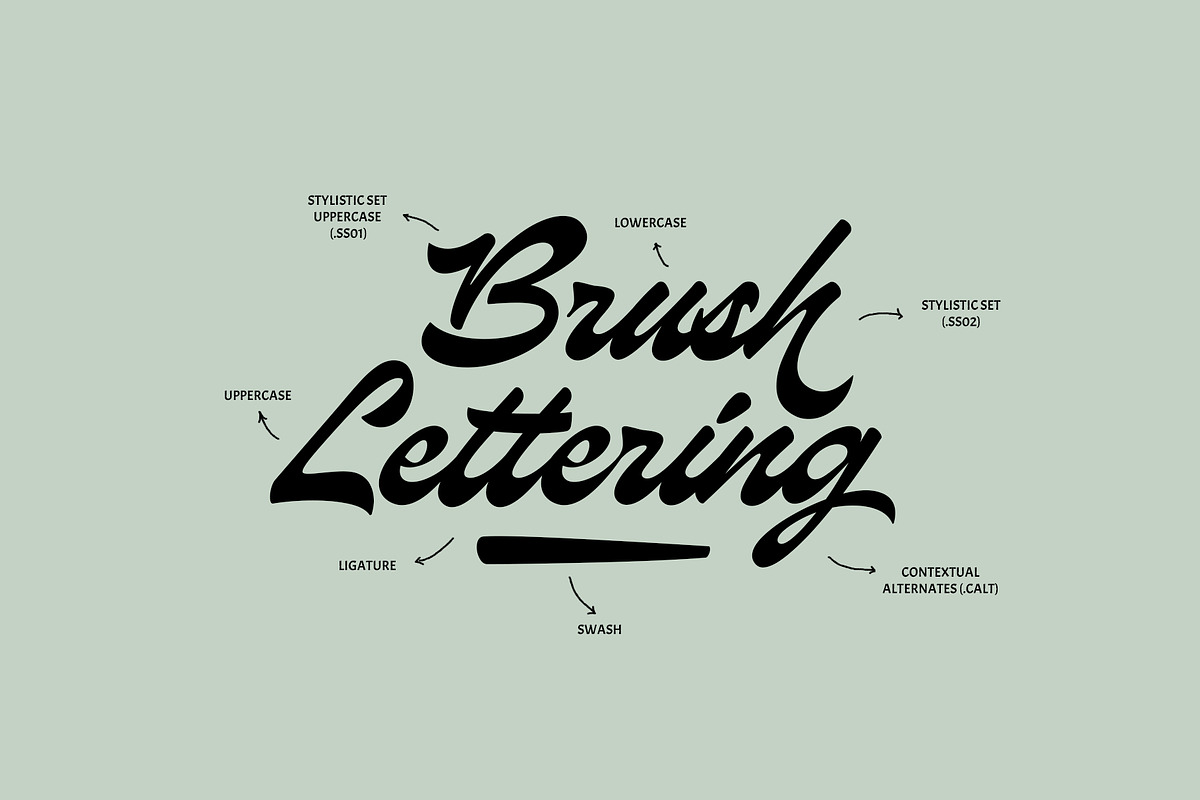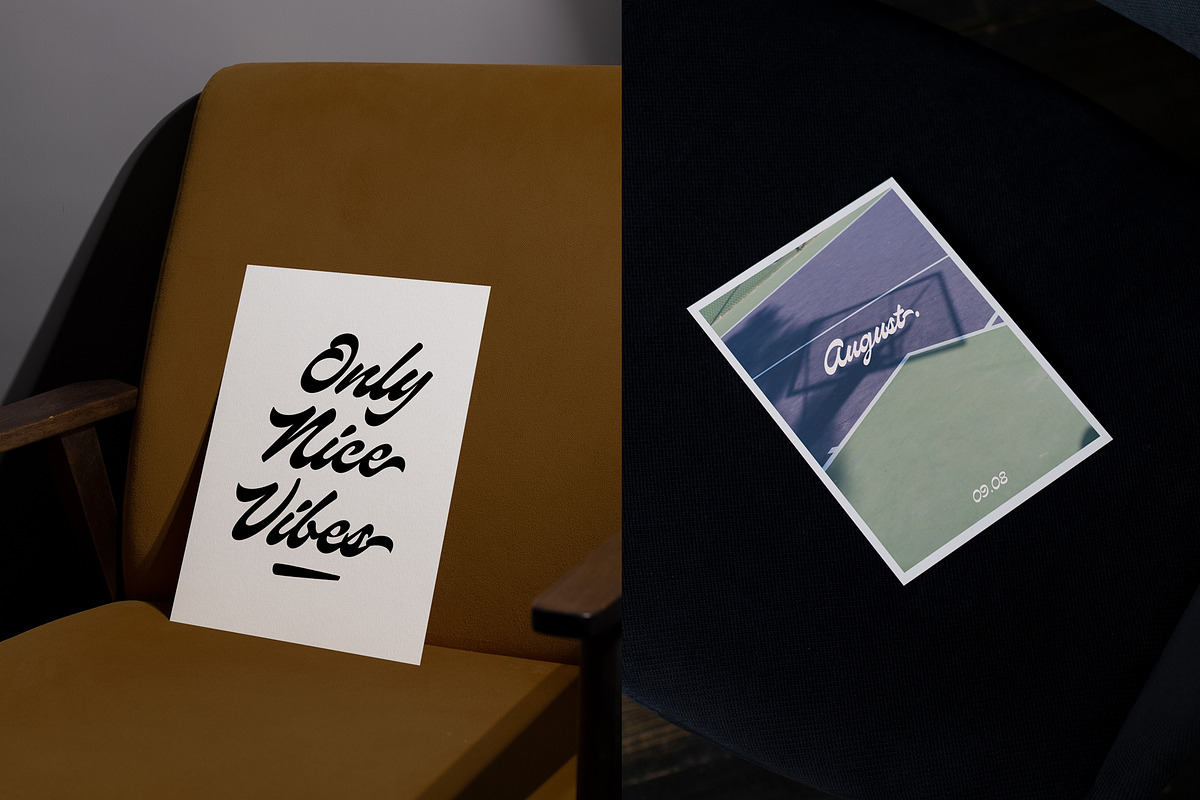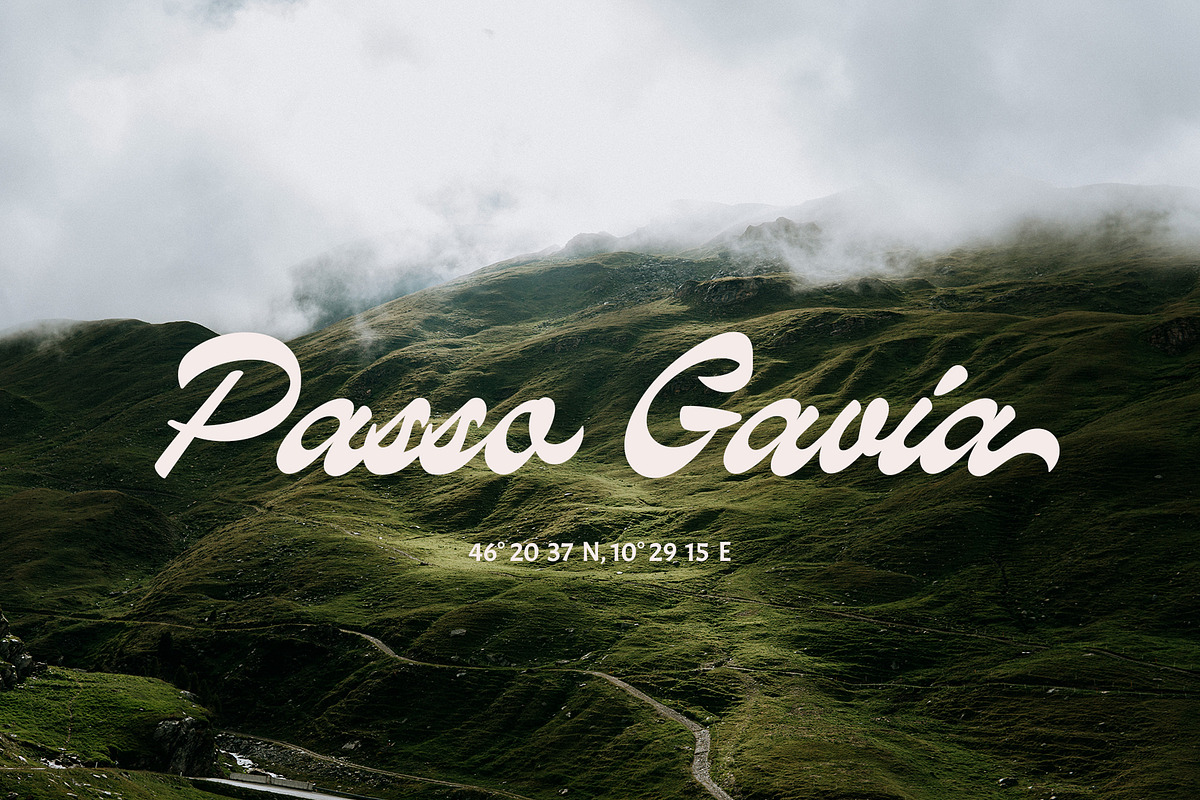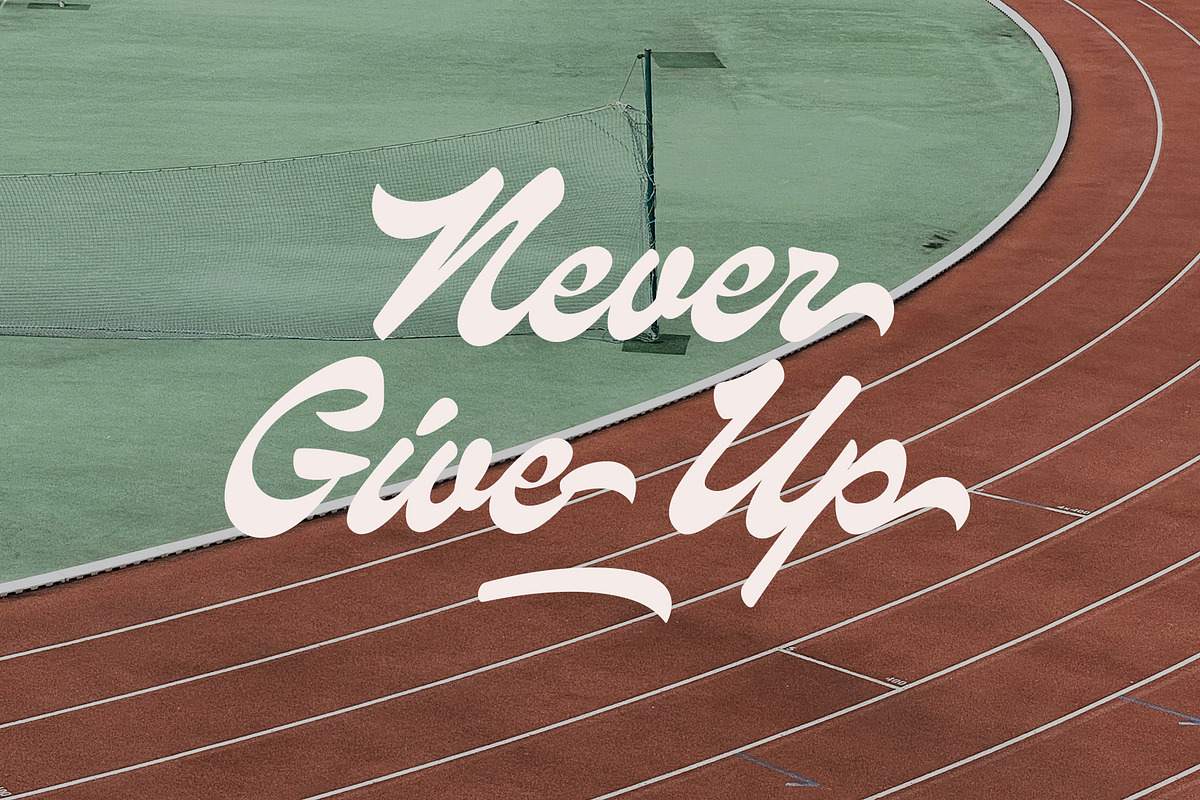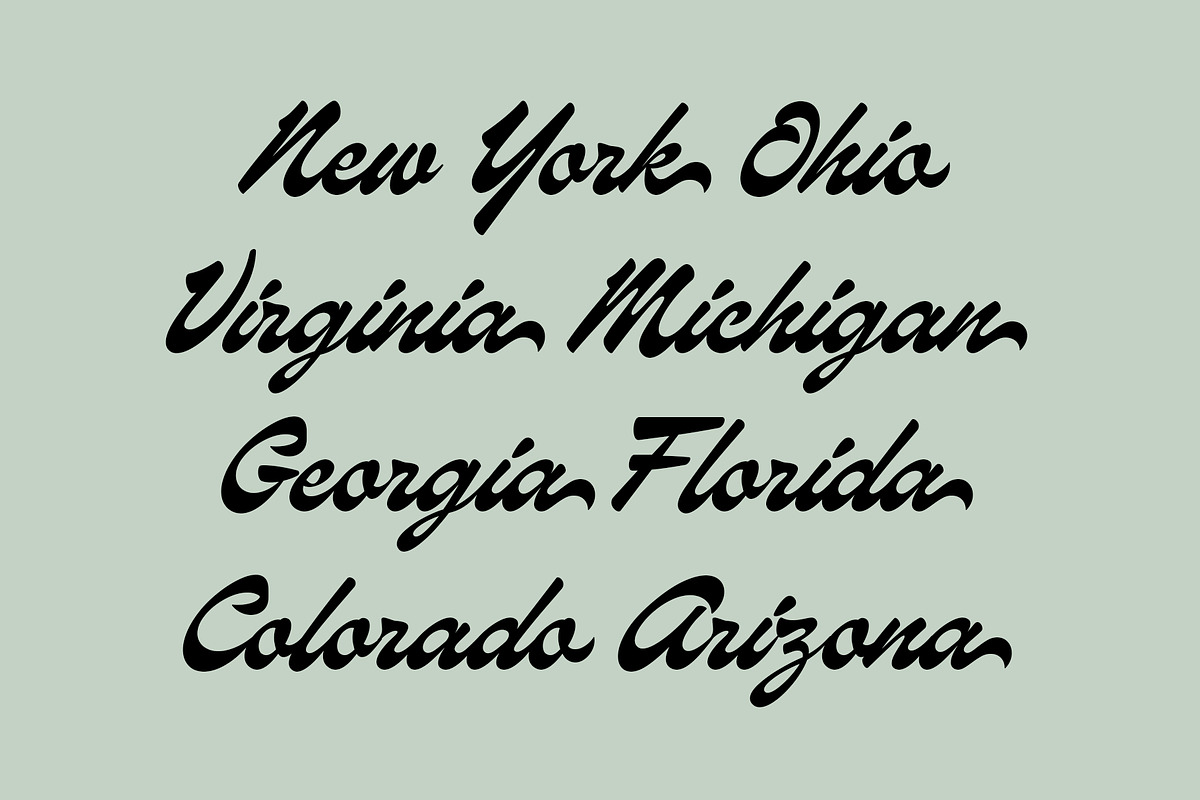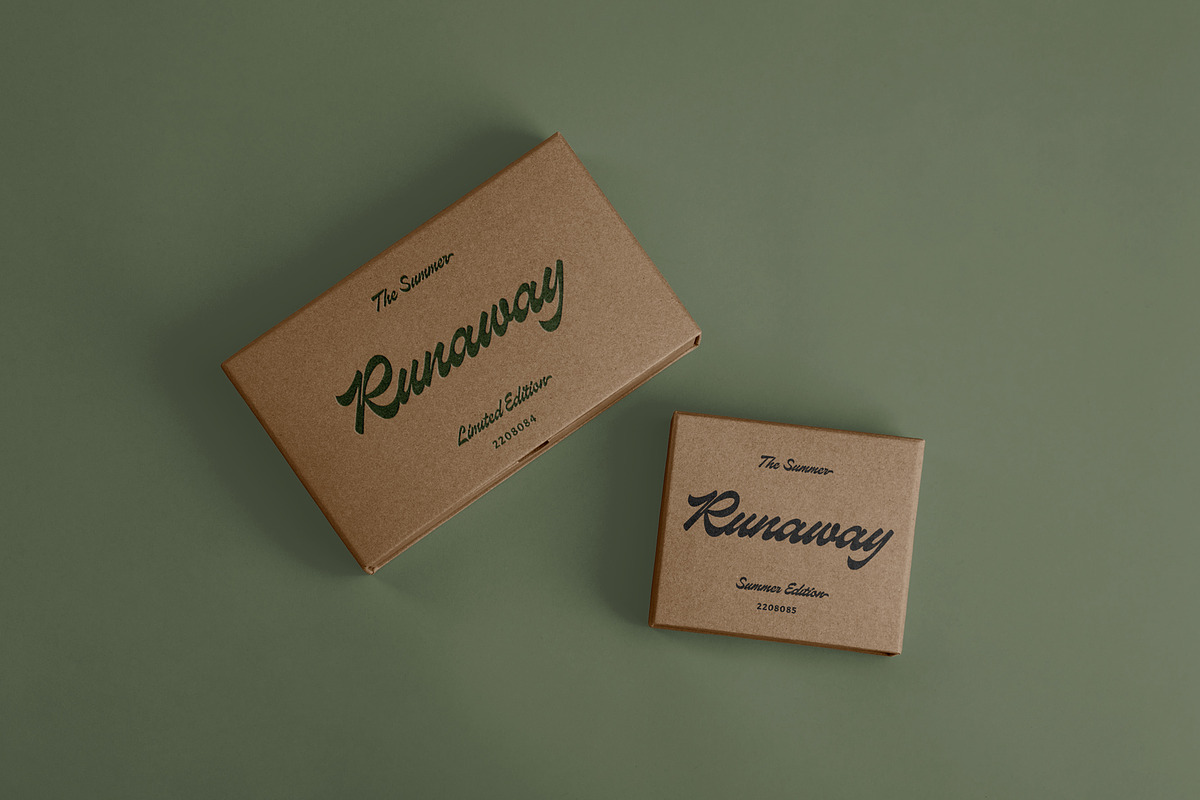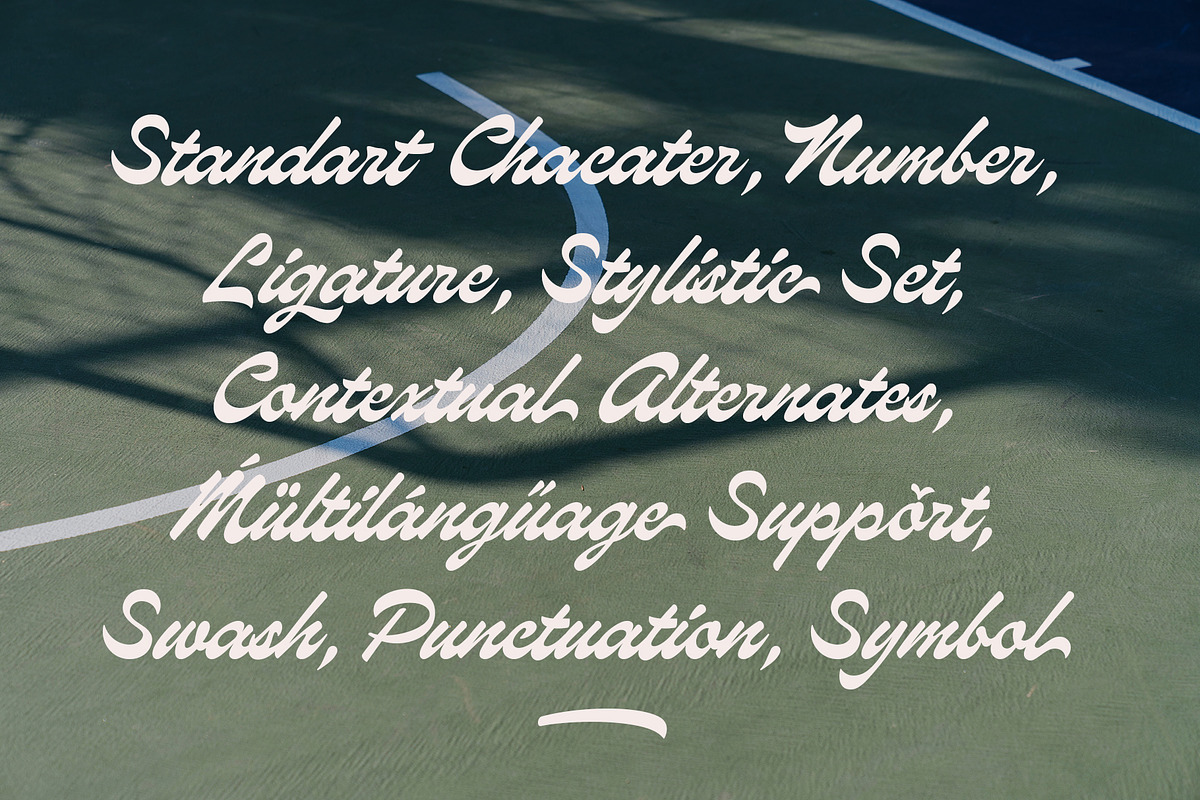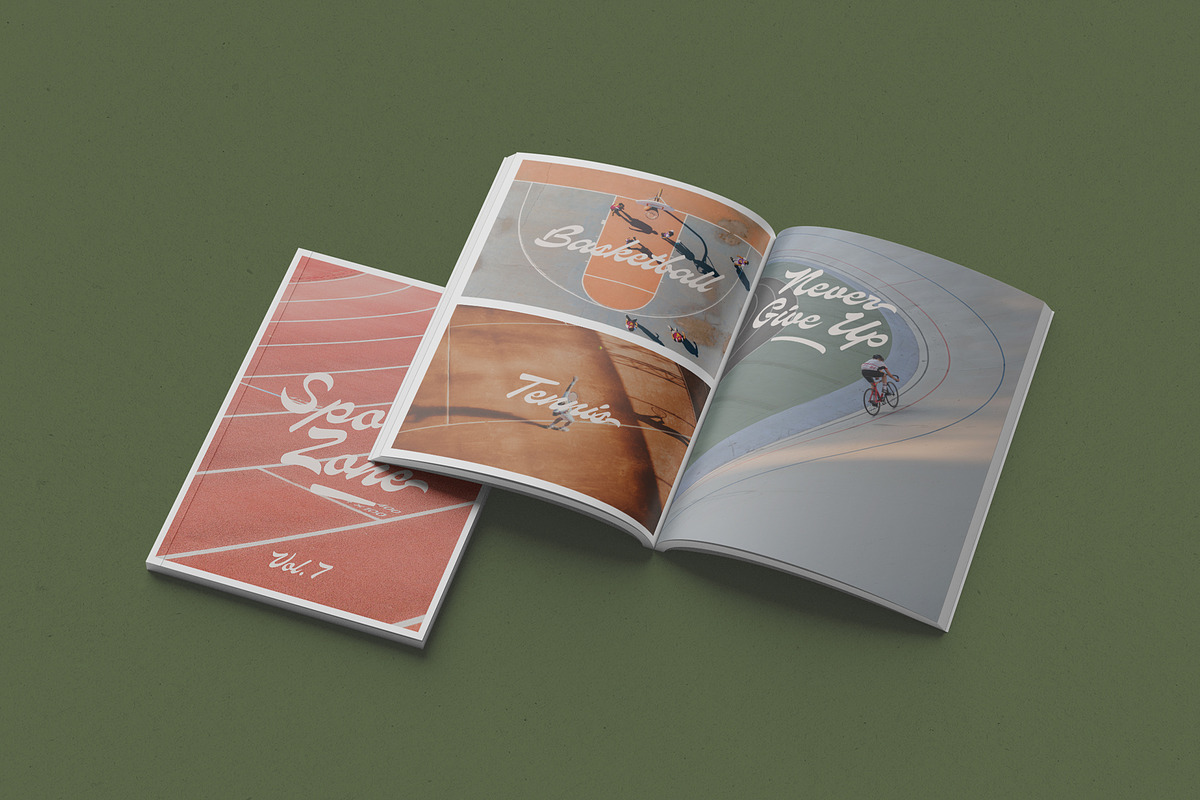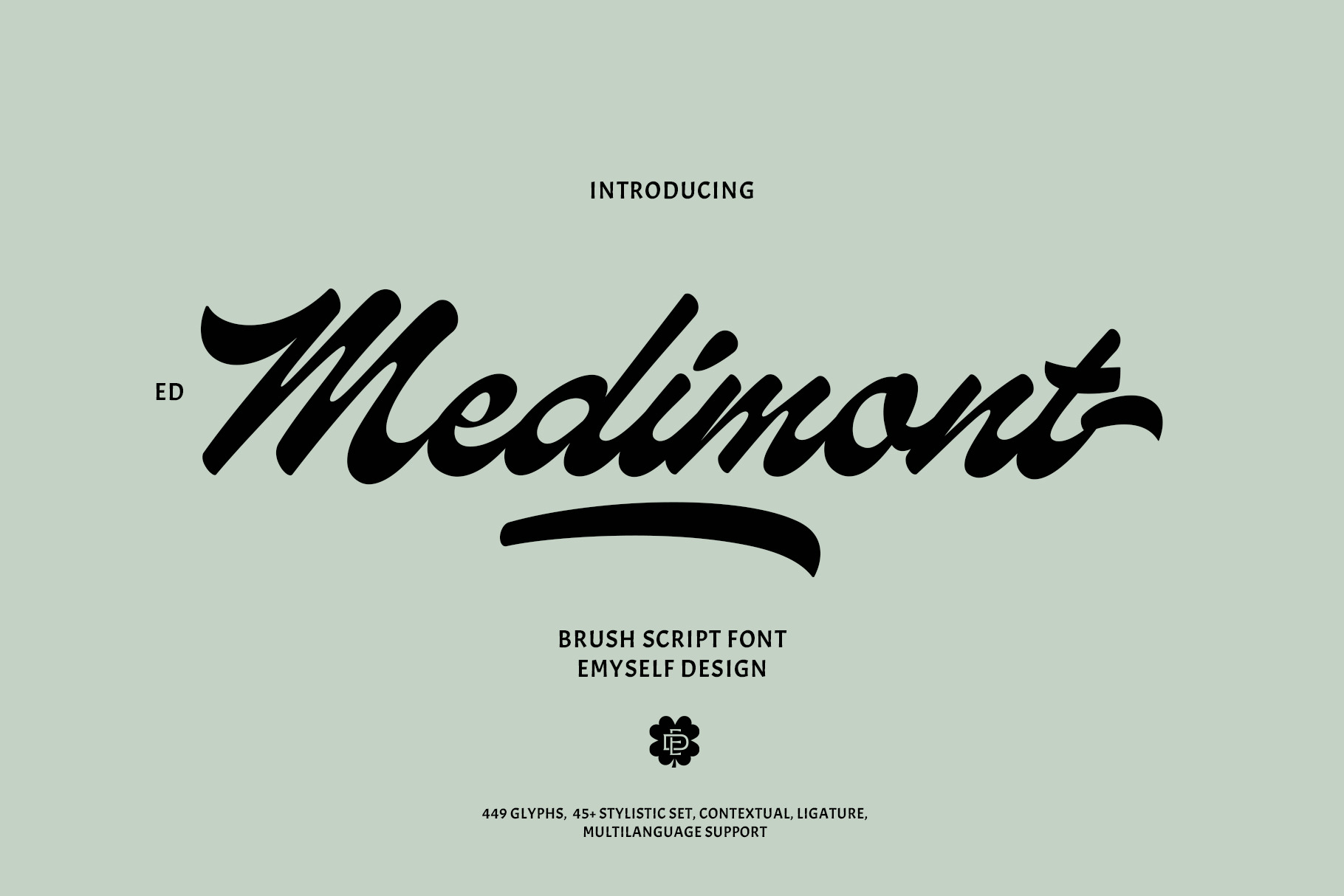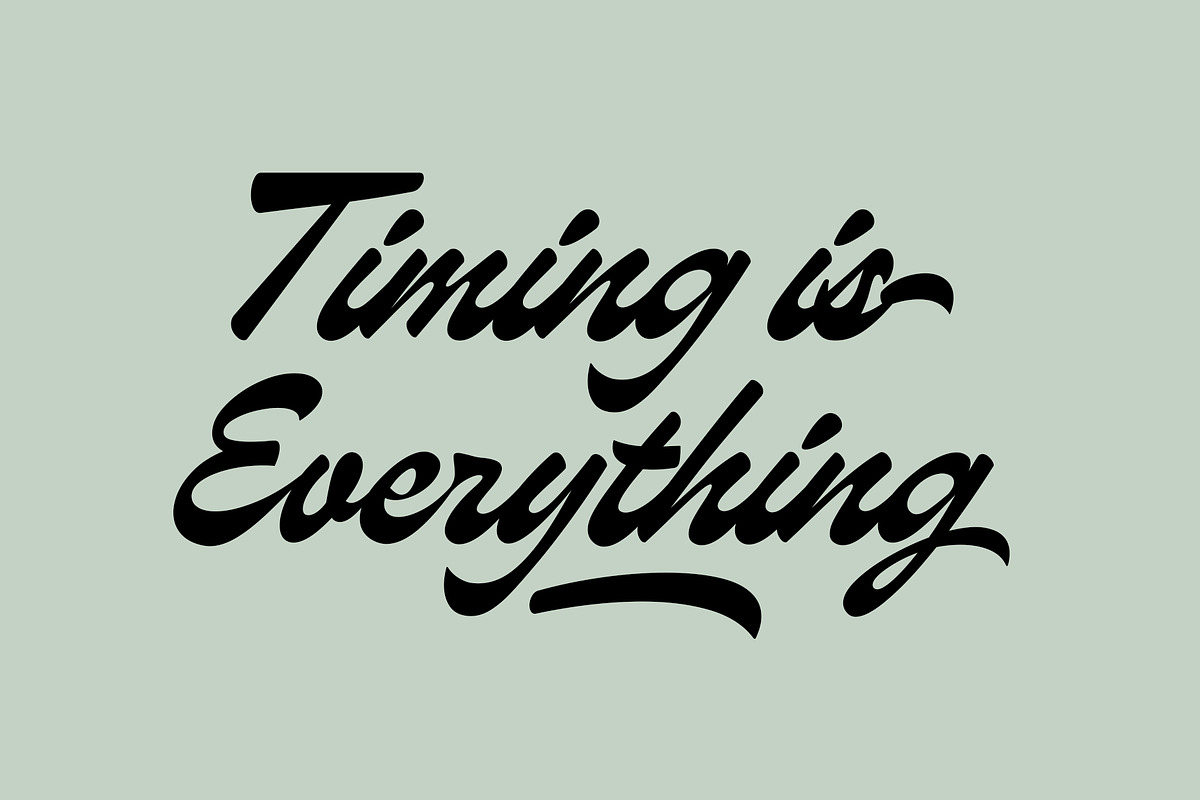
ED Medimont - Brush Script font
ED Medimont is a brush script font with a classic vintage style.This font is also equipped with Swash, 45+ stylistic sets, Contextual Alternative, ligatures and also multi-language support which further adds to the creativity in using this font.
This font is perfect for your creative projects such as Logotype, printed quotes, invitations, cards, product packaging, headers, Letterhead, Apparel , Web design, Magazine, Book, etc.
- Total Glyph : 449
- Swash font
- Punctuation and Marks
- Contextual Alternative
- 45+ stylistic set & Ligatures